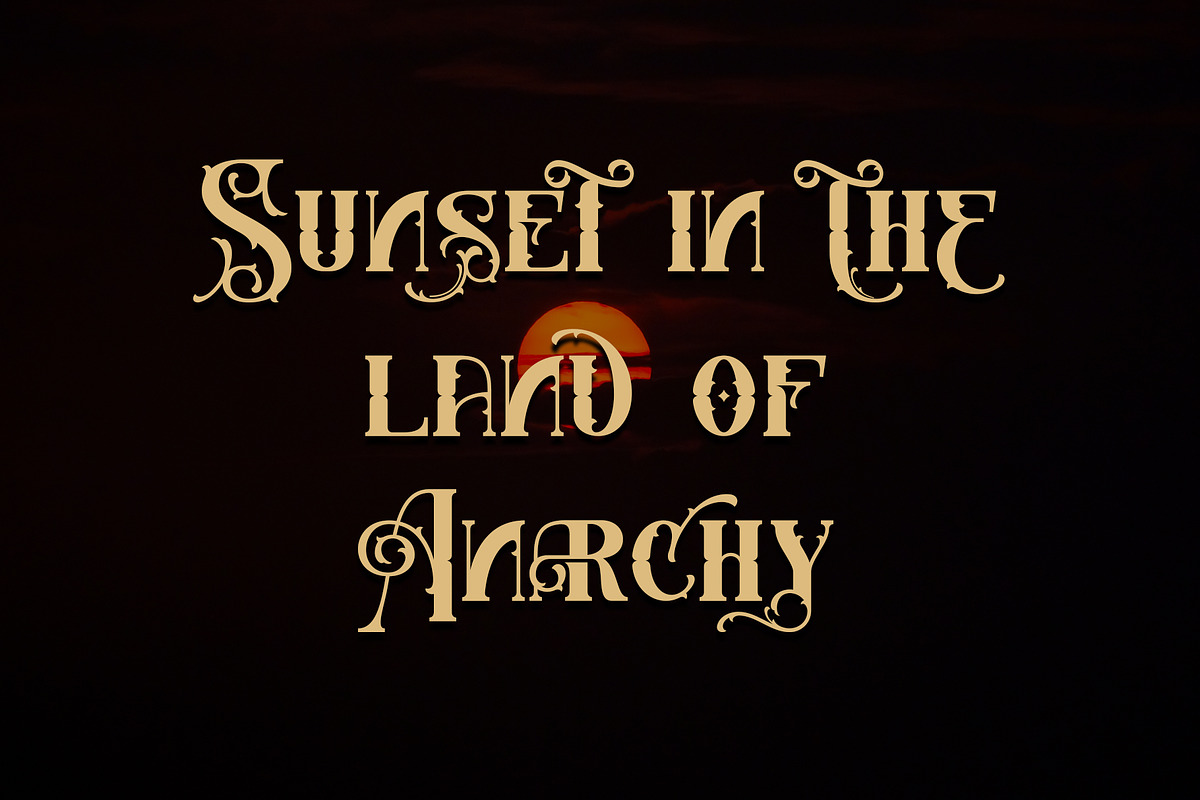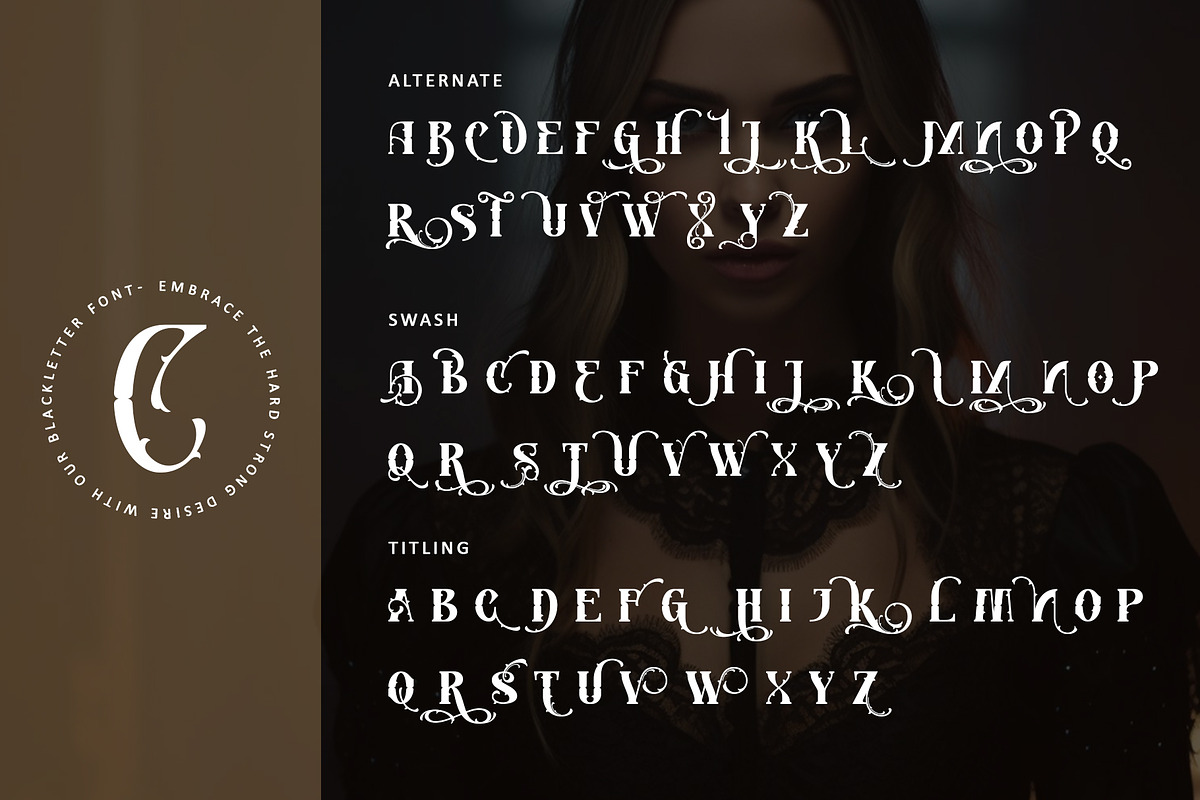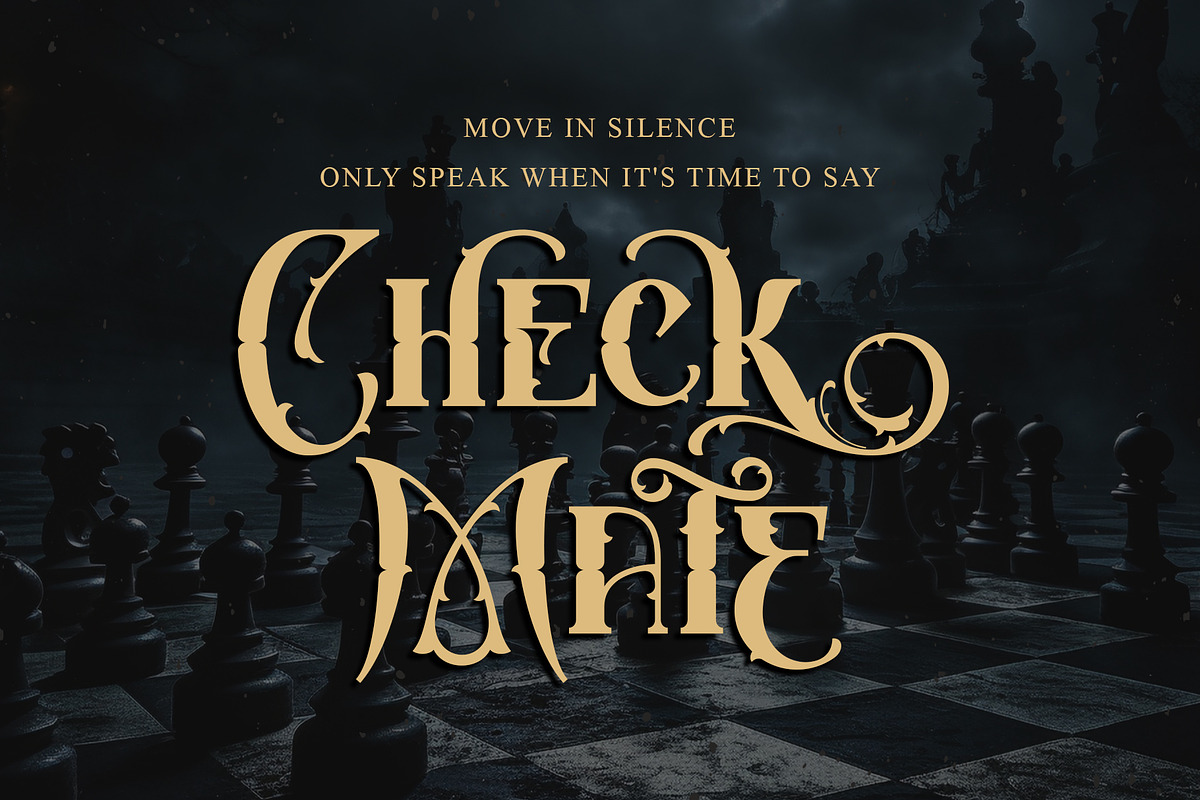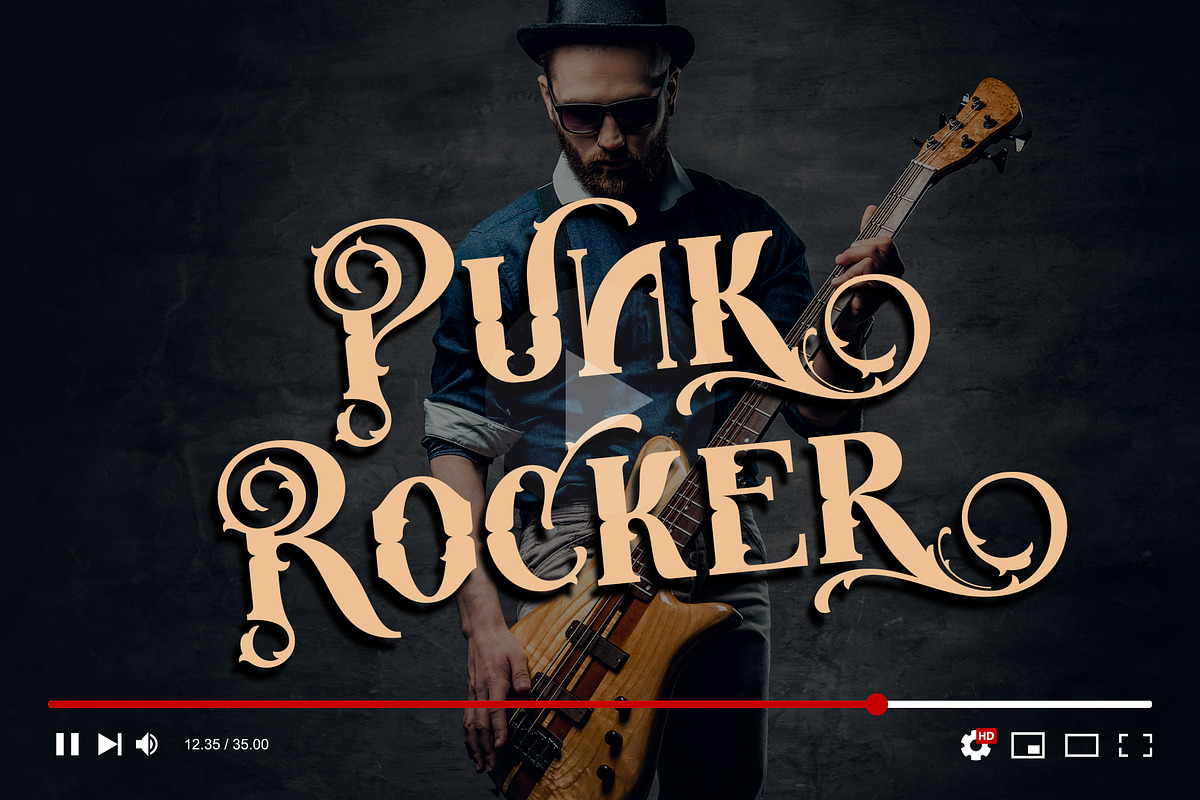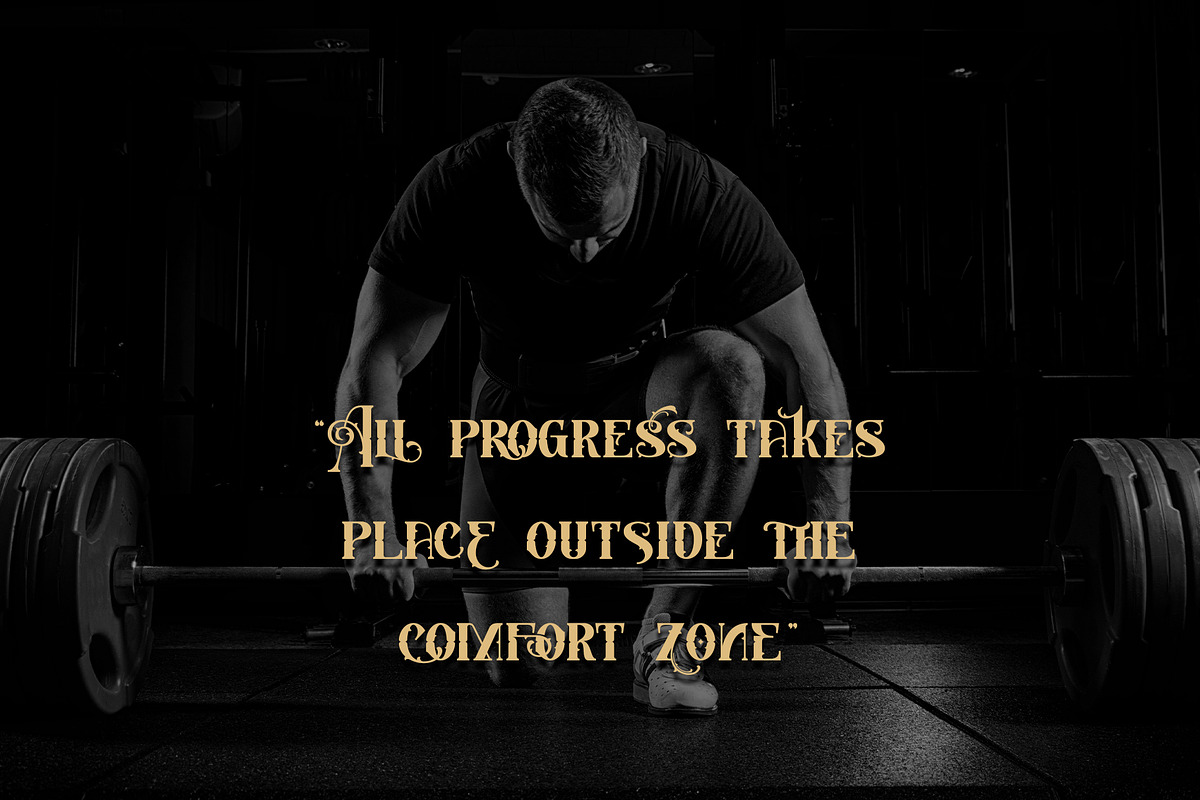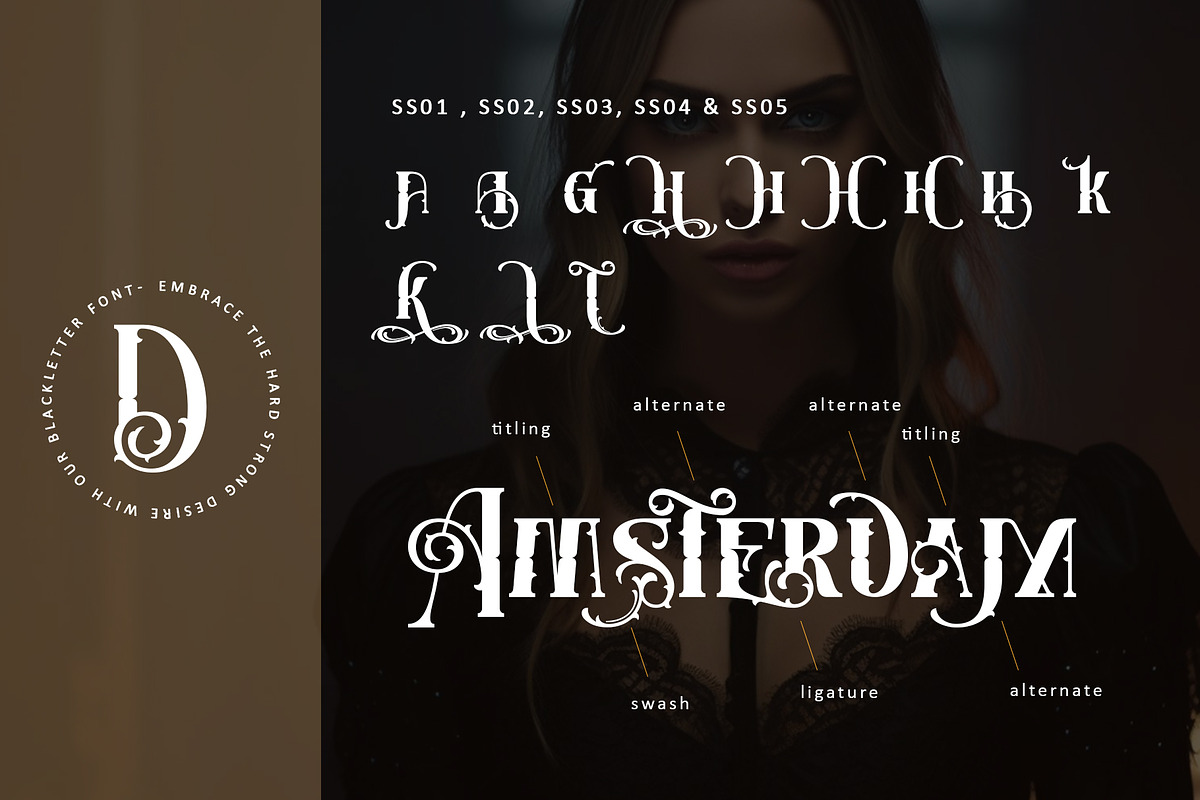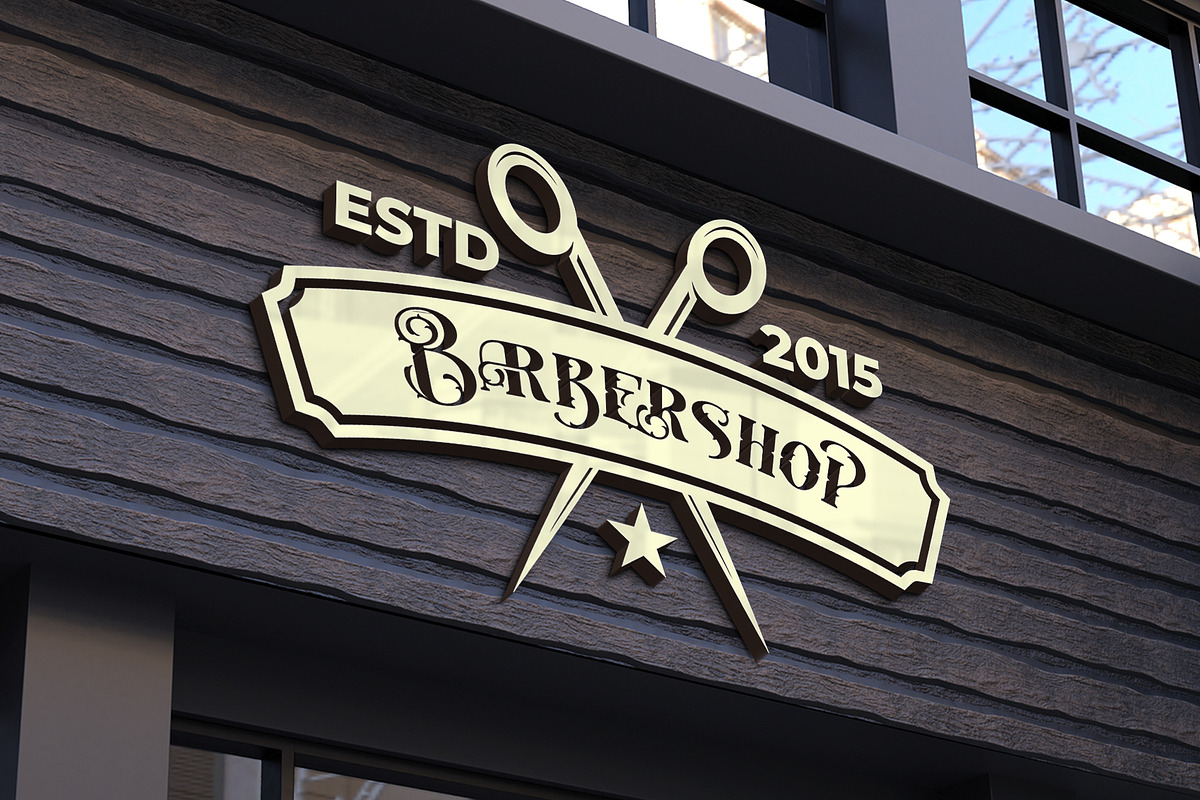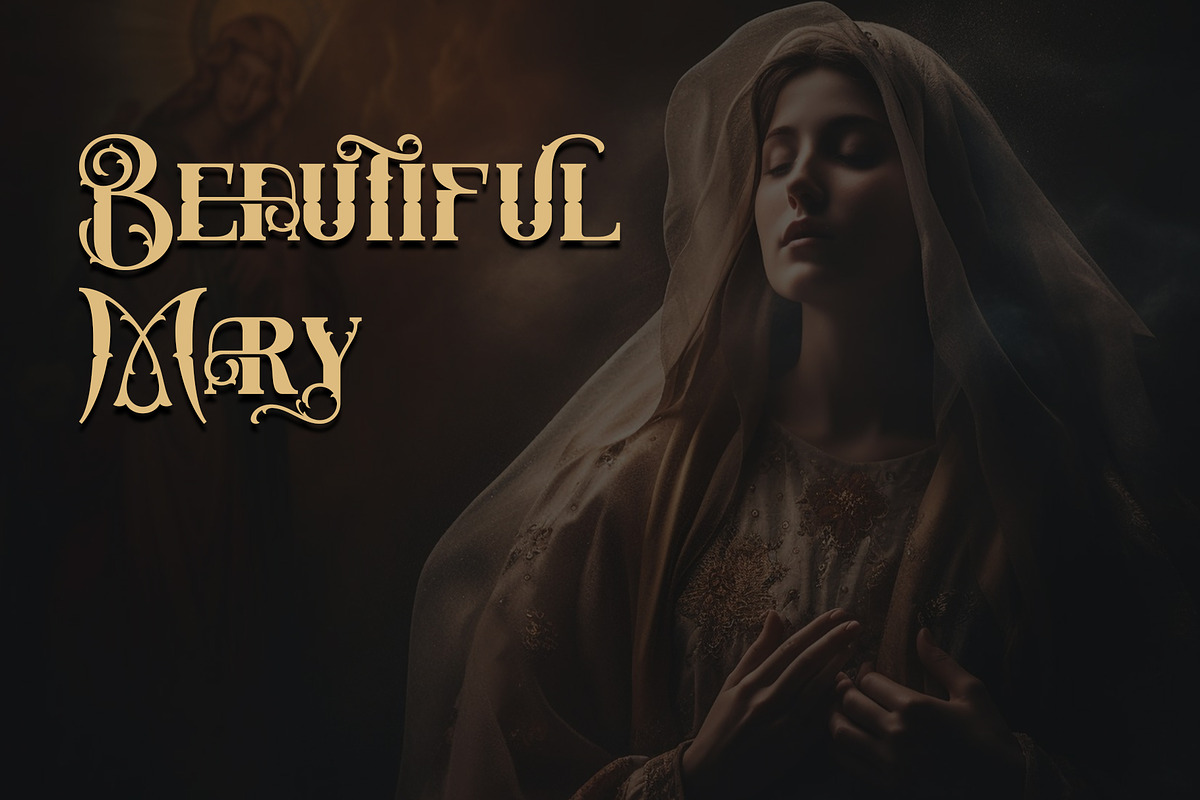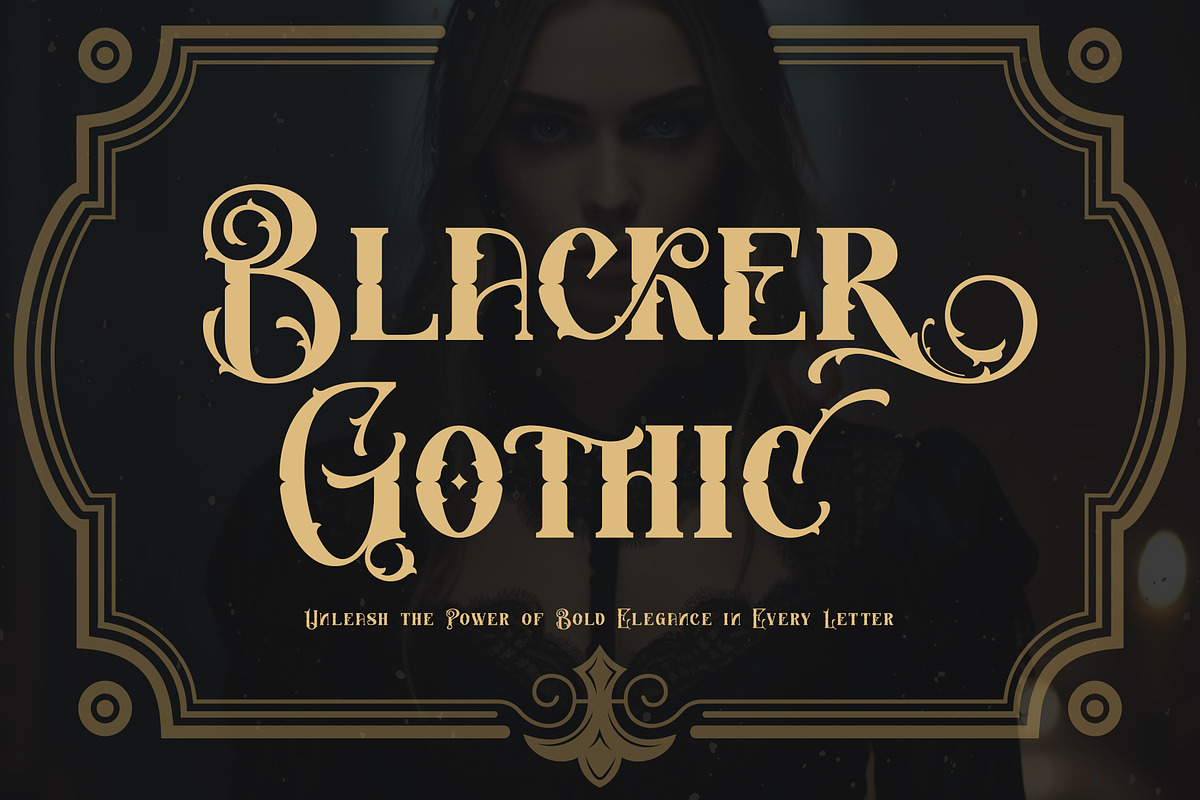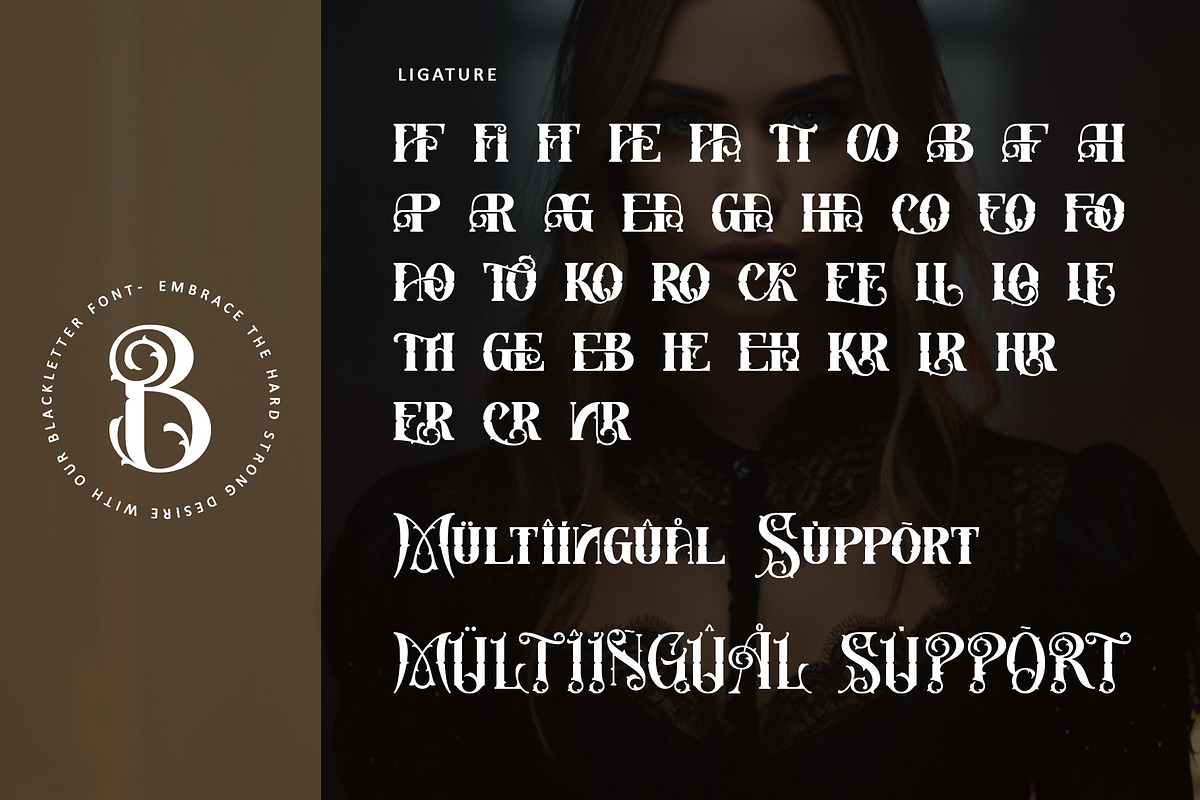
Blacker Gothic
Discover the allure of Blacker Gothic, an entrancing blackletter font that seamlessly blends bold elegance with distinctive character forms. Perfect for enhancing a variety of design projects, from product packaging to branding, its PUA encoding grants easy access to a wealth of unique glyphs and swashes, ensuring extraordinary results for your creative endeavors
Many Features:
- Support multilingual; ä ö ü Ä Ö Ü ß ¿ ¡
- lowercase and uppercase letters
- Alternate, swash, titling, ss01, ss02, ss03, ss04, ss05 & ligature